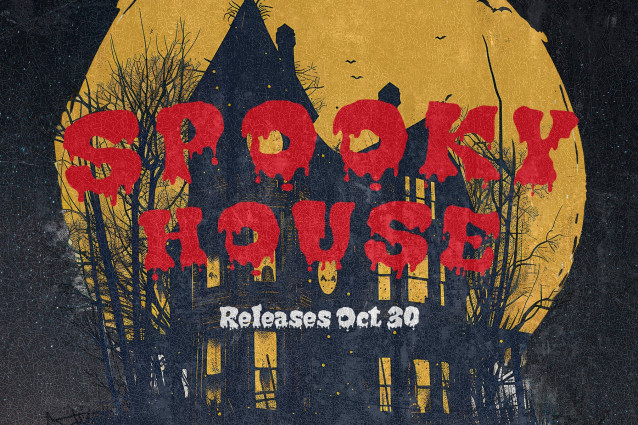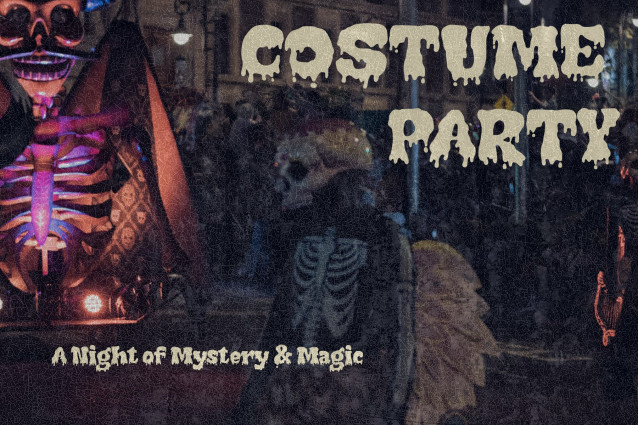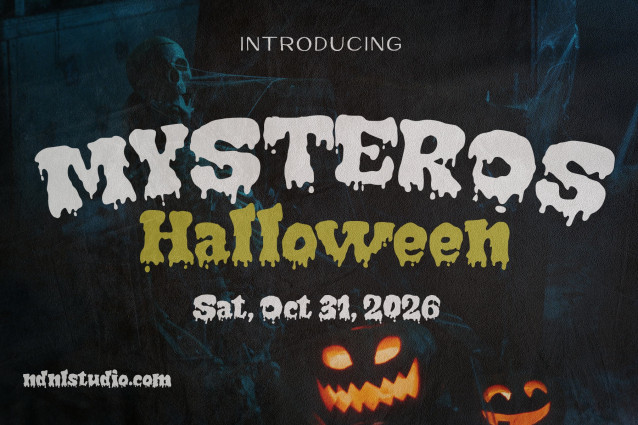
Mysteros – Halloween Font
Introducing Mysteros!
Mysteros is a bold display font inspired by the atmosphere of Halloween, horror, and mystery. Featuring melted, distorted shapes and dripping details, it creates a look that feels creepy, playful, and full of character.
Mysteros is perfect for Halloween posters, invitations, album covers, artwork, logos, merchandise, social media graphics, headlines, and horror-themed projects. Its distinctive letterforms instantly add a spooky and eye-catching personality to any design.
– Character set A-Z
– Uppercase & Lowercase
– Numerals & Punctuation
– Accented Characters (West Europe)